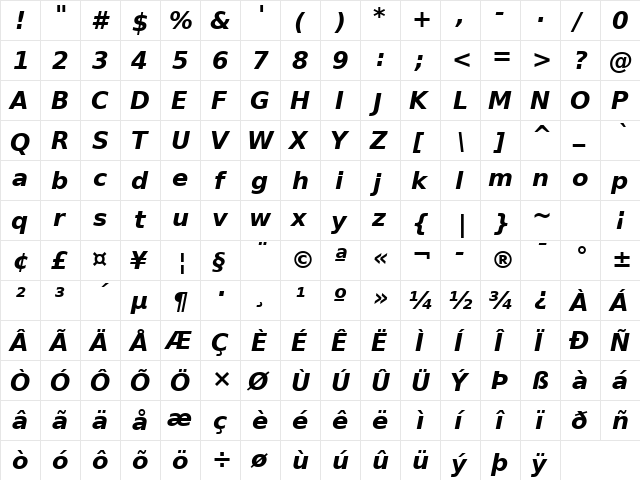
Bitstream Vera Sans Bold Oblique
Design Context for Bitstream Vera Sans Typeface
Bitstream Vera Sans is a composed and adaptable typeface that performs quietly and consistently across a wide range of design contexts. The dynamic lean of this cut emphasises speed and emphasis in any layout. Its bold stroke weight gives it real presence on the page.
Pro Tip: Try Bitstream Vera Sans for annotation and caption copy alongside an upright companion — the contrast in angle creates a dynamic but ordered typographic system.